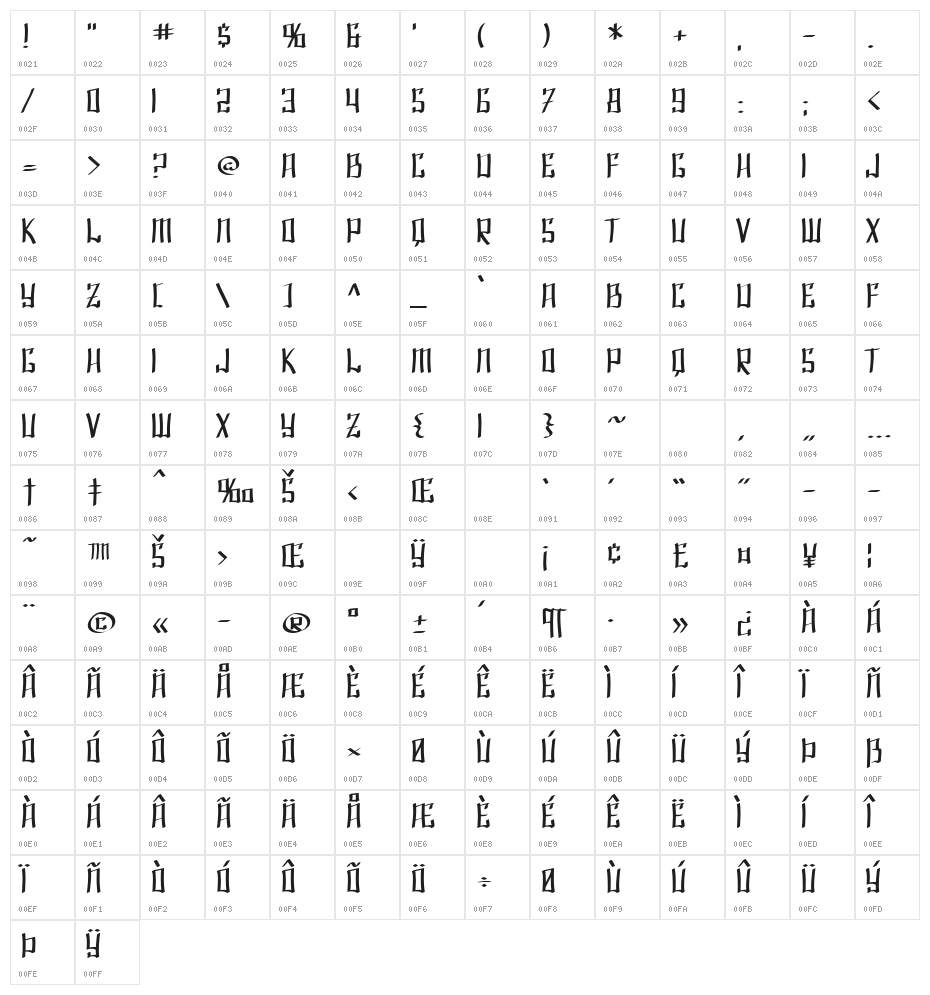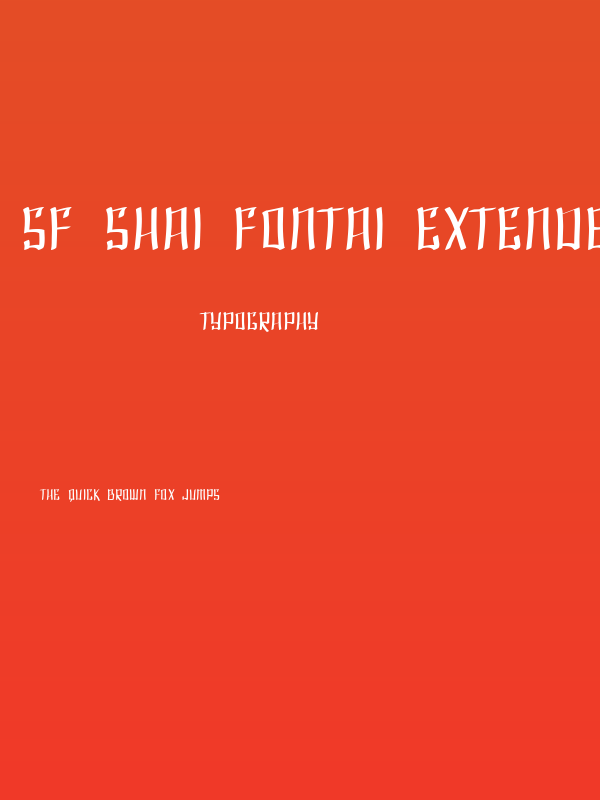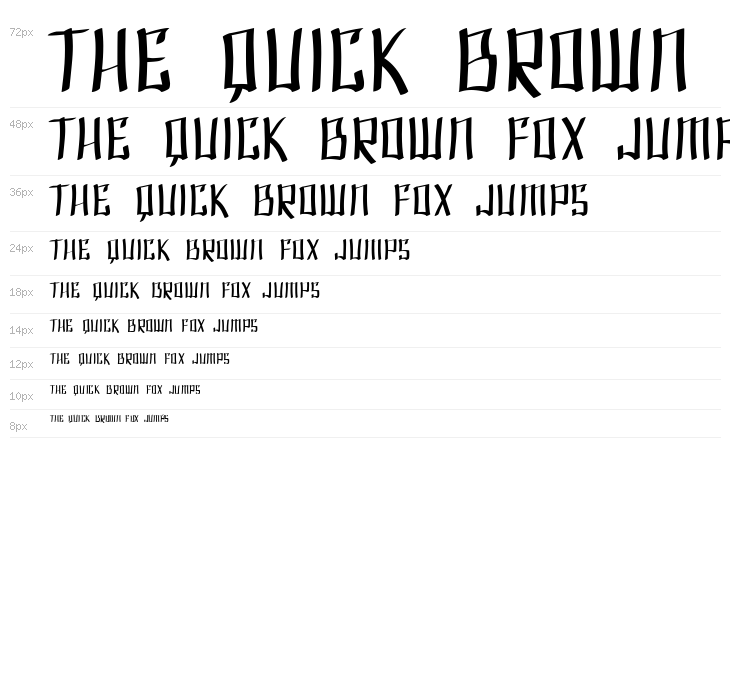
SF Shai Fontai Extended Font
SF Shai Fontai Extended Description
This font features a bold and striking design with a distinct gothic influence. The characters are elongated with sharp, angular edges, giving them a dramatic and imposing appearance. The uppercase and lowercase letters maintain a consistent style, emphasizing verticality and symmetry. The numerals are equally bold, ensuring they stand out in any context. Special characters are designed to match the overall aesthetic, contributing to a cohesive and visually impactful typeface.
| Proposed Projects | Ideal for use in branding, posters, album covers, and any project requiring a dramatic and bold typeface. |